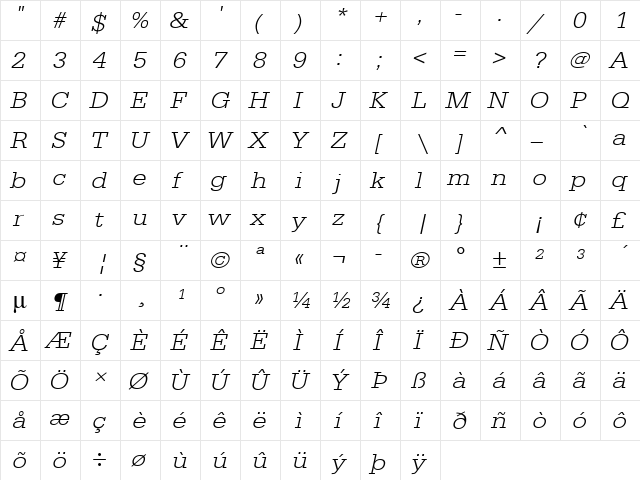
URWEgyptienneTLigExtWid Oblique
Design Context for URWEgyptienneTLigExtWid Typeface
URWEgyptienneTLigExtWid offers clean, dependable letterforms without strong stylistic allegiance, making it a practical choice for designers who need flexibility. The slanted form adds forward momentum and visual energy.
Pro Tip: Try URWEgyptienneTLigExtWid for annotation and caption copy alongside an upright companion — the contrast in angle creates a dynamic but ordered typographic system.